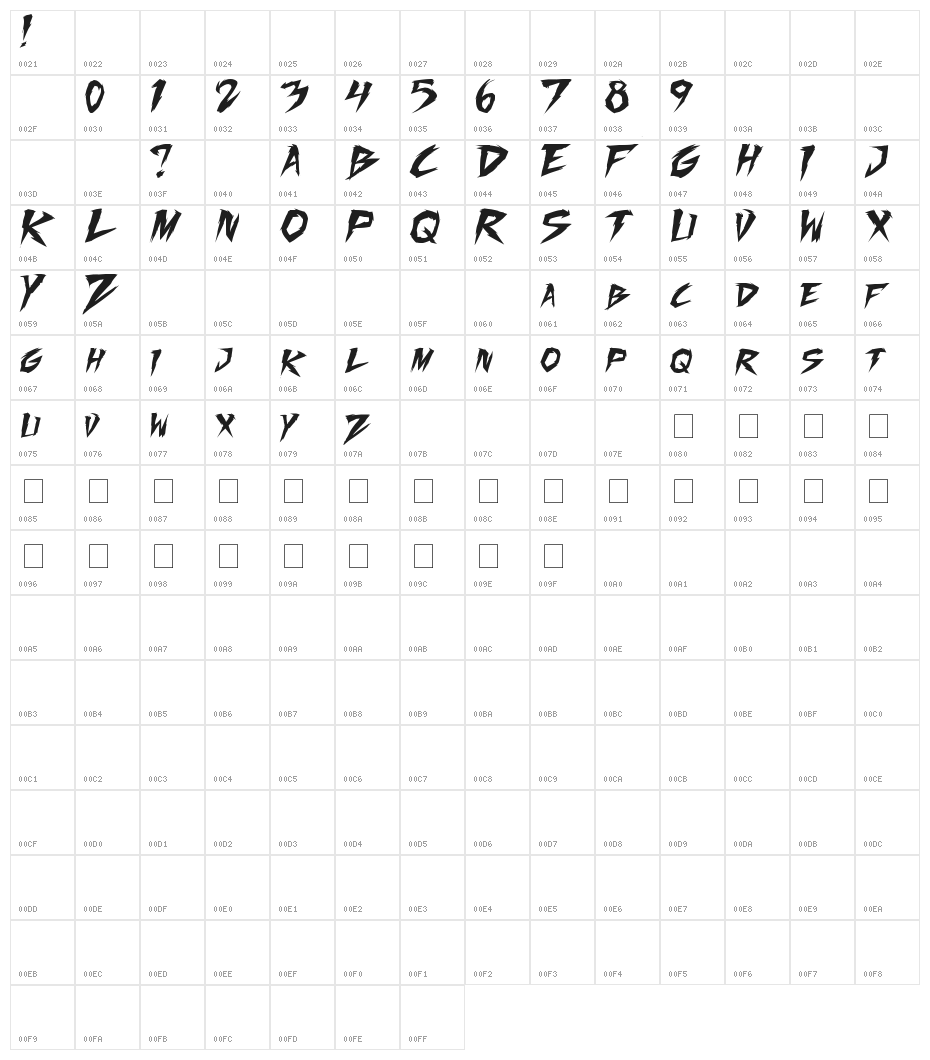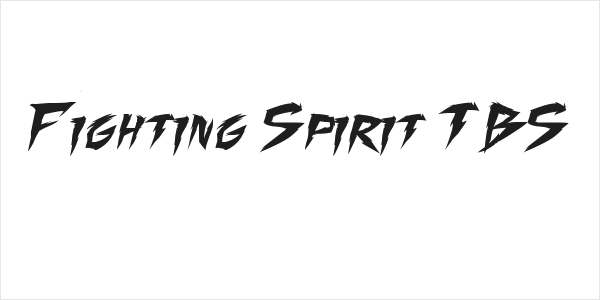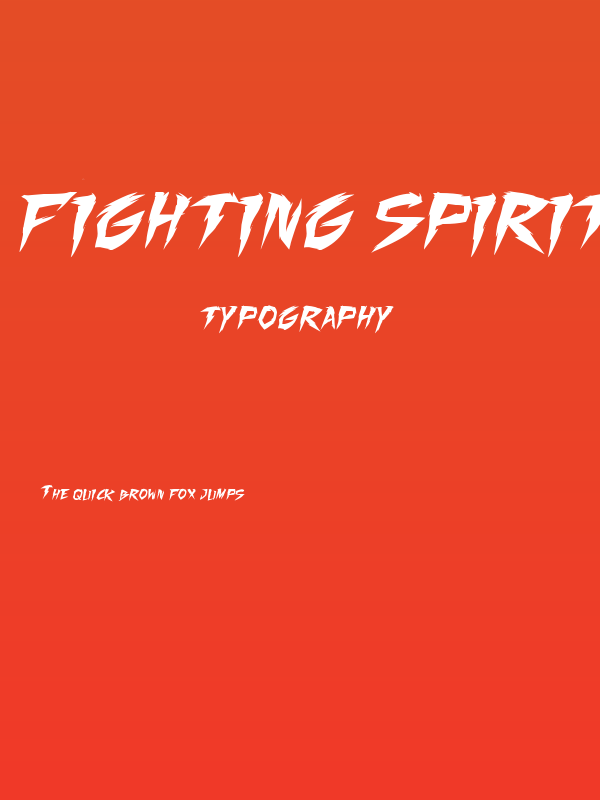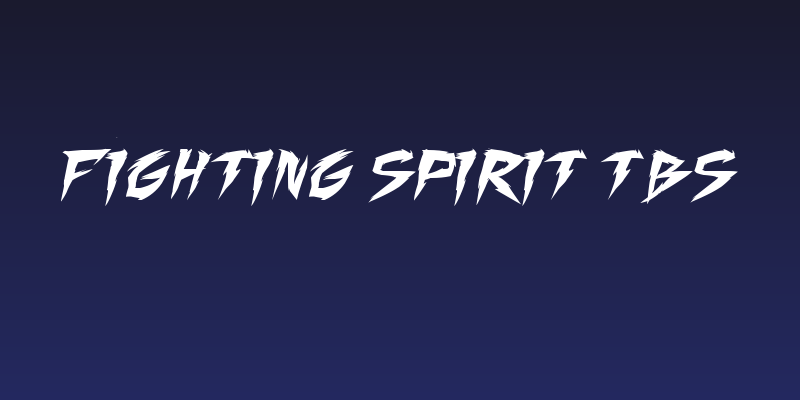
Fighting Spirit TBS Font
Fighting Spirit TBS Description
This font features a dynamic and aggressive style, characterized by sharp, jagged edges and a bold presence. The letters are designed with a sense of motion and energy, resembling brush strokes or claw marks. The uppercase and lowercase letters maintain a consistent style, with each character exhibiting a unique flair that contributes to the overall fierce aesthetic. The numbers and special characters follow the same design principles, ensuring a cohesive look across all glyphs. This font is ideal for projects that require a strong, impactful visual statement.
| Proposed Projects | Ideal for sports branding, action movie posters, video game titles, and any project needing a bold, energetic typeface. |